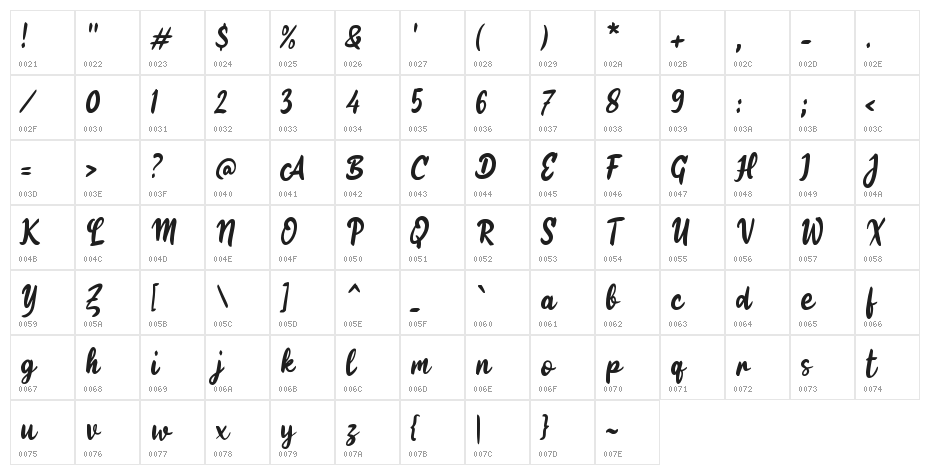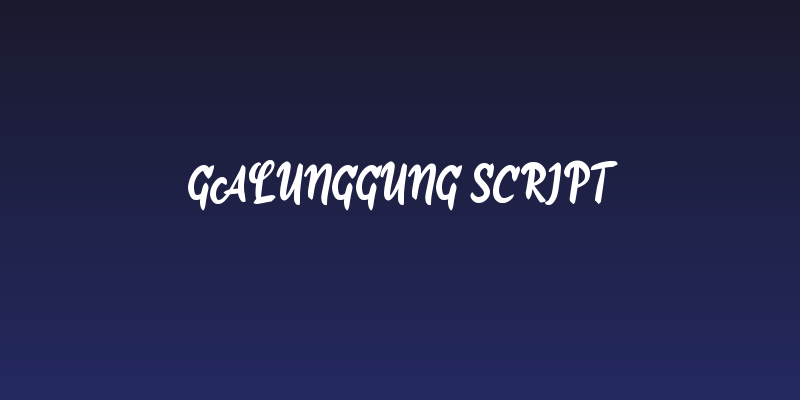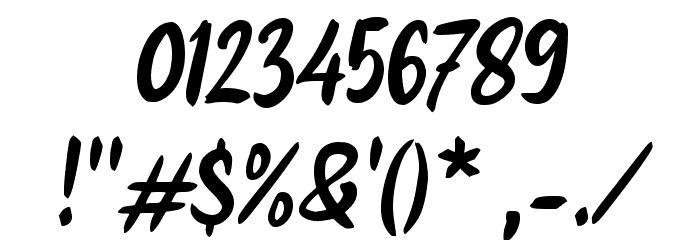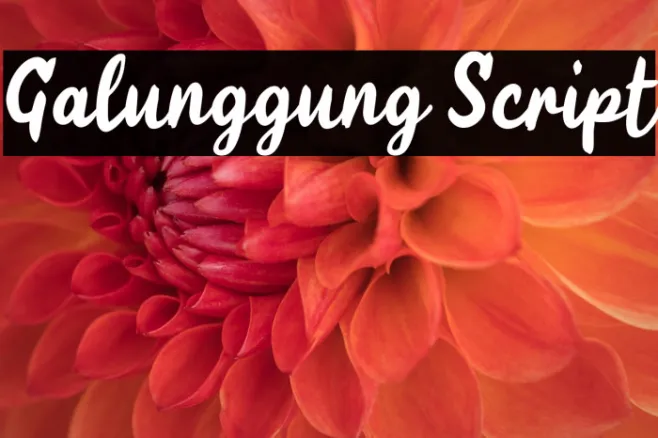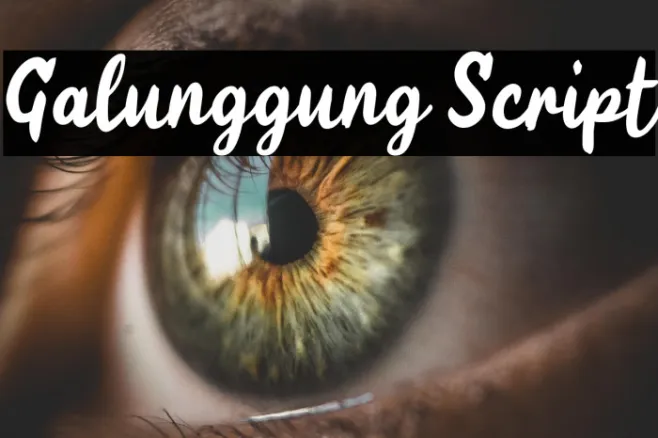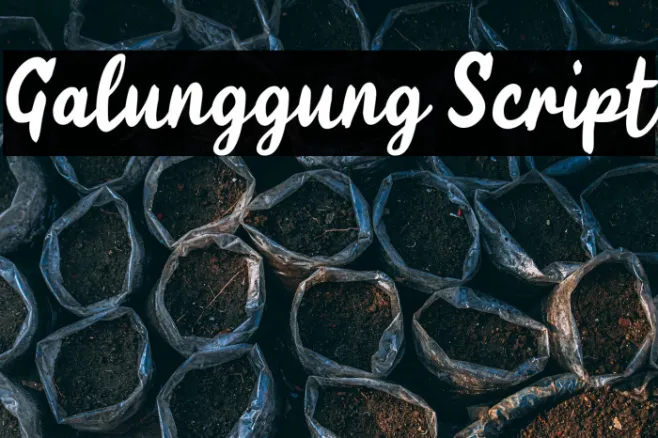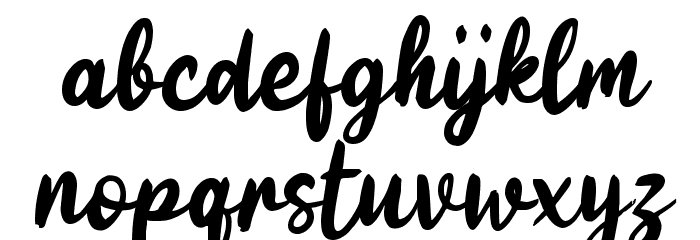
Galunggung Script Font
Galunggung Script Description
This script font exudes a lively and dynamic character, with its bold, flowing strokes and cursive style. The uppercase letters are elegantly crafted with a slight slant, giving a sense of movement and fluidity. The lowercase letters maintain a consistent rhythm, enhancing readability while retaining a playful charm. Numbers and special characters are designed to complement the overall aesthetic, ensuring versatility across various applications. The font's boldness and unique style make it suitable for creative projects that require a touch of personality and flair.
| Proposed Projects | Ideal for branding, invitations, greeting cards, and creative posters. |